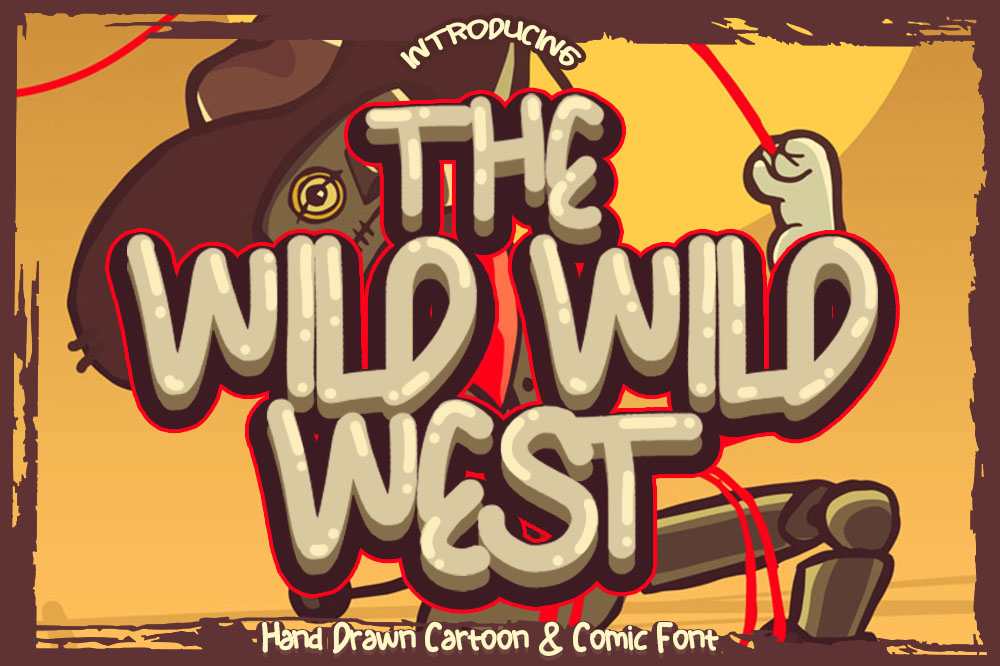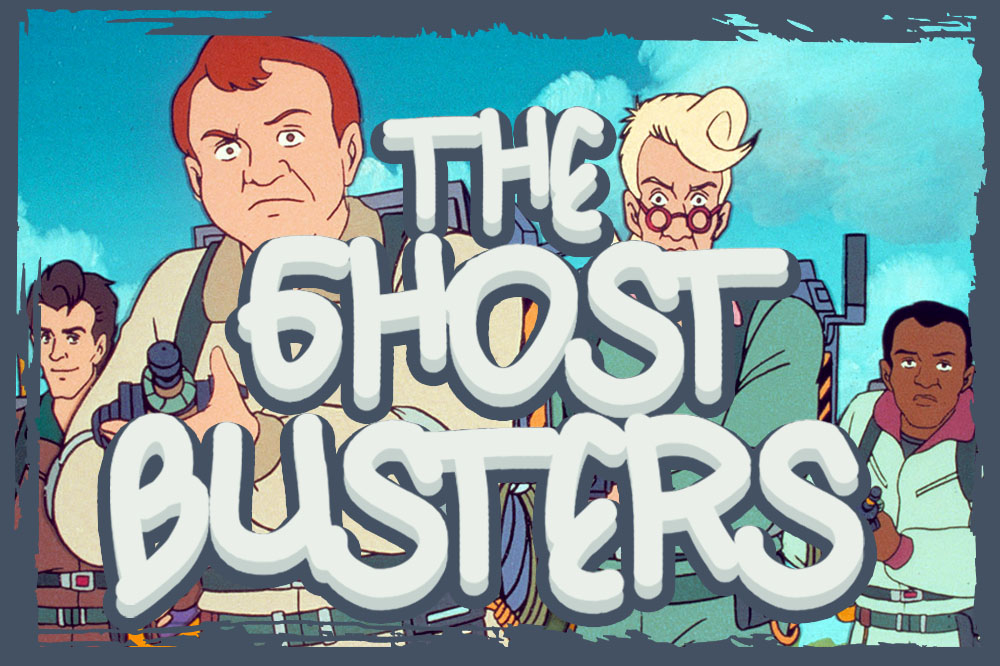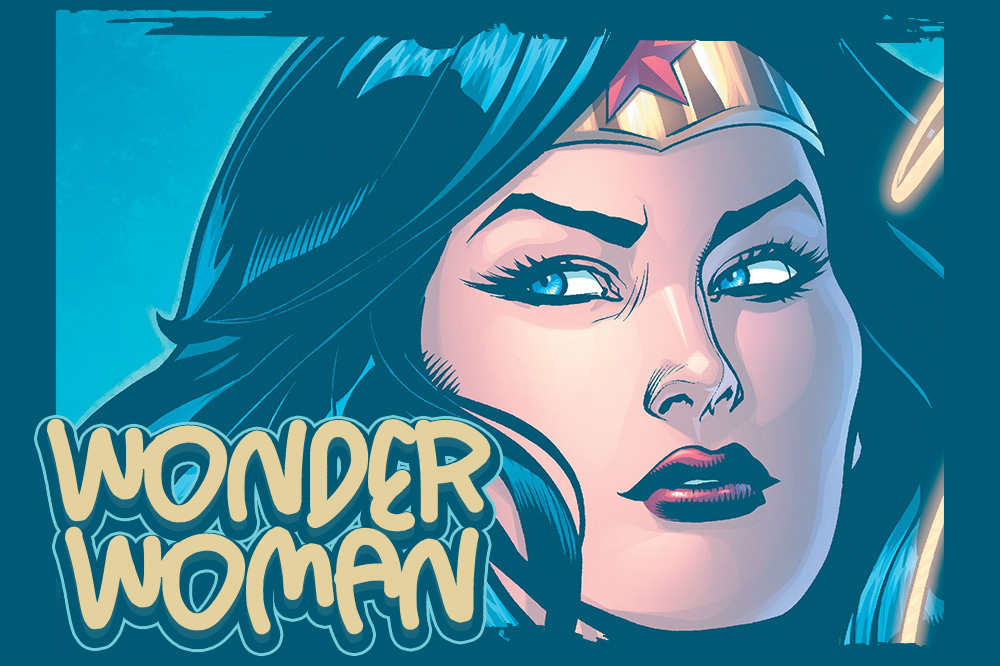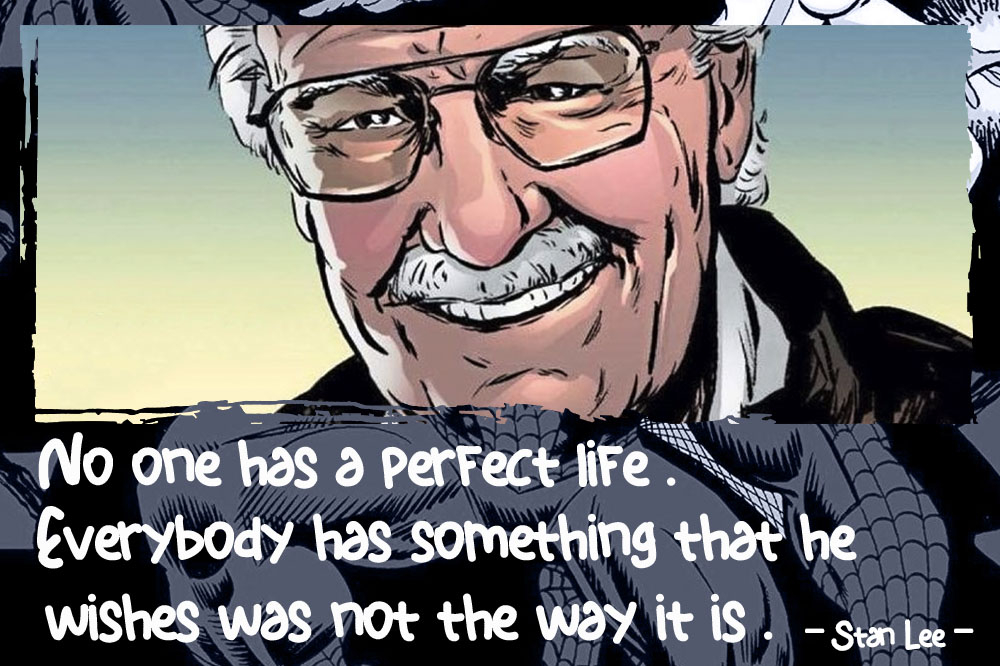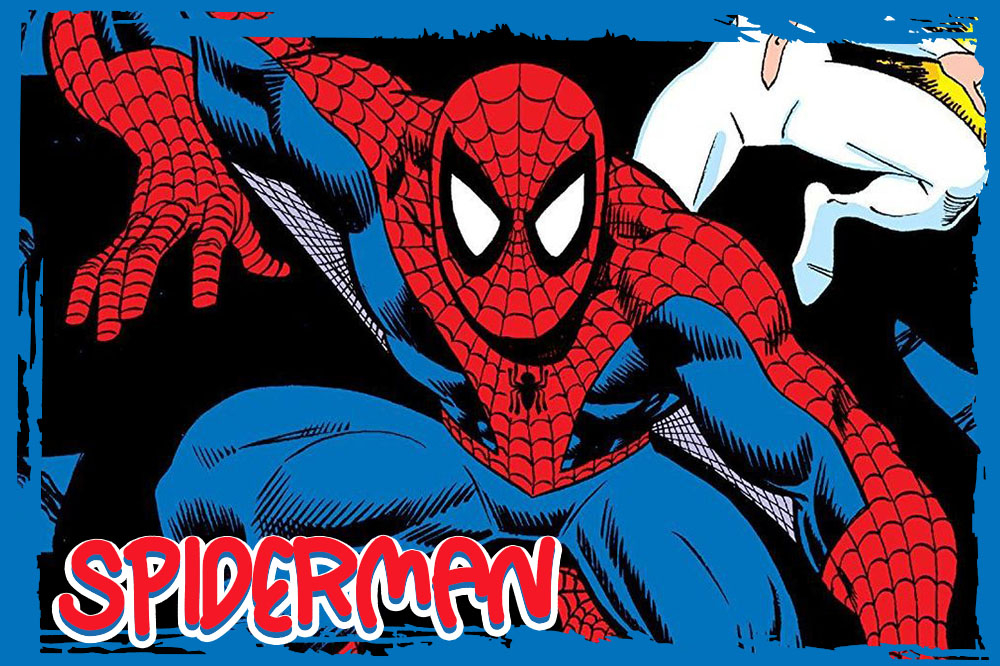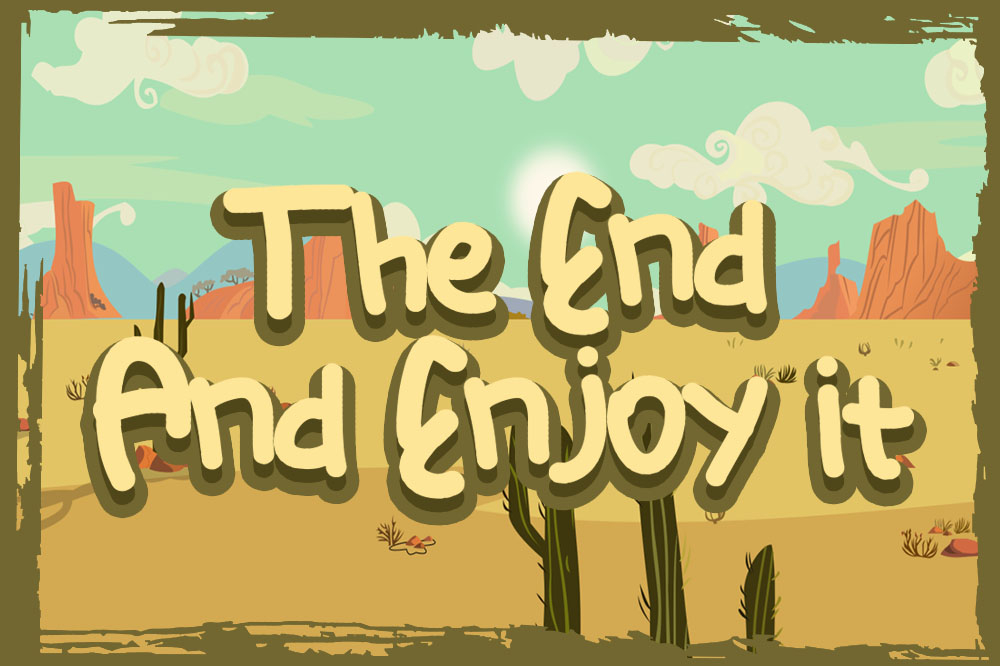
HomeBlackletter FontsThe Wild Wild West Font Blackletter Fonts The Wild Wild West Font FacebookXPinterestWhatsApp 1 of 8 The Wild Wild West Font Poster 2... The Wild Wild West Font Poster 3... The Wild Wild West Font Poster 4... The Wild Wild West Font Poster 5... The Wild Wild West Font Poster 6... The Wild Wild West Font Poster 7... The Wild Wild West Font Poster 8... About The Wild Wild West Font The Wild Wild West font is a classically playful typeface. It works great for many creative designs! DOWNLOAD NOW People also explored Austhina Font Austand Signature Hello There Font Claustyn Font Midsummer Better Font Winter Snow Font El Guapo Font Amal Sae Font Village Rabigen Font 290 0 TagsThe Wild Wild West Font Previous articleBlack Torch FontNext articleBlack Phanter Font LEAVE A REPLY Cancel reply Comment: Please enter your comment! Name:* Please enter your name here Email:* You have entered an incorrect email address! Please enter your email address here Website: Save my name, email, and website in this browser for the next time I comment. Personal Use Free First Be Lucky Personal Use Free Read more about this font Oaklevin Personal Use Free Read more about this font Rumaniaya Personal Use Free Read more about this font Alinda Personal Use Free Read more about this font BLOG Elegant Wedding Invitation Fonts – Handwritten & Script Fonts Elegant Wedding Invitation Fonts Your wedding day is one of the most important moments of your life, and every detail matters—including your invitation design. Our... How to Install and Use Fonts on Windows, macOS, and Web Projects Free vs Paid Fonts: Why Investing in Premium Fonts Is Worth It Top 7 Google Fonts Alternatives for Faster and Privacy-Friendly Web Design (2025)